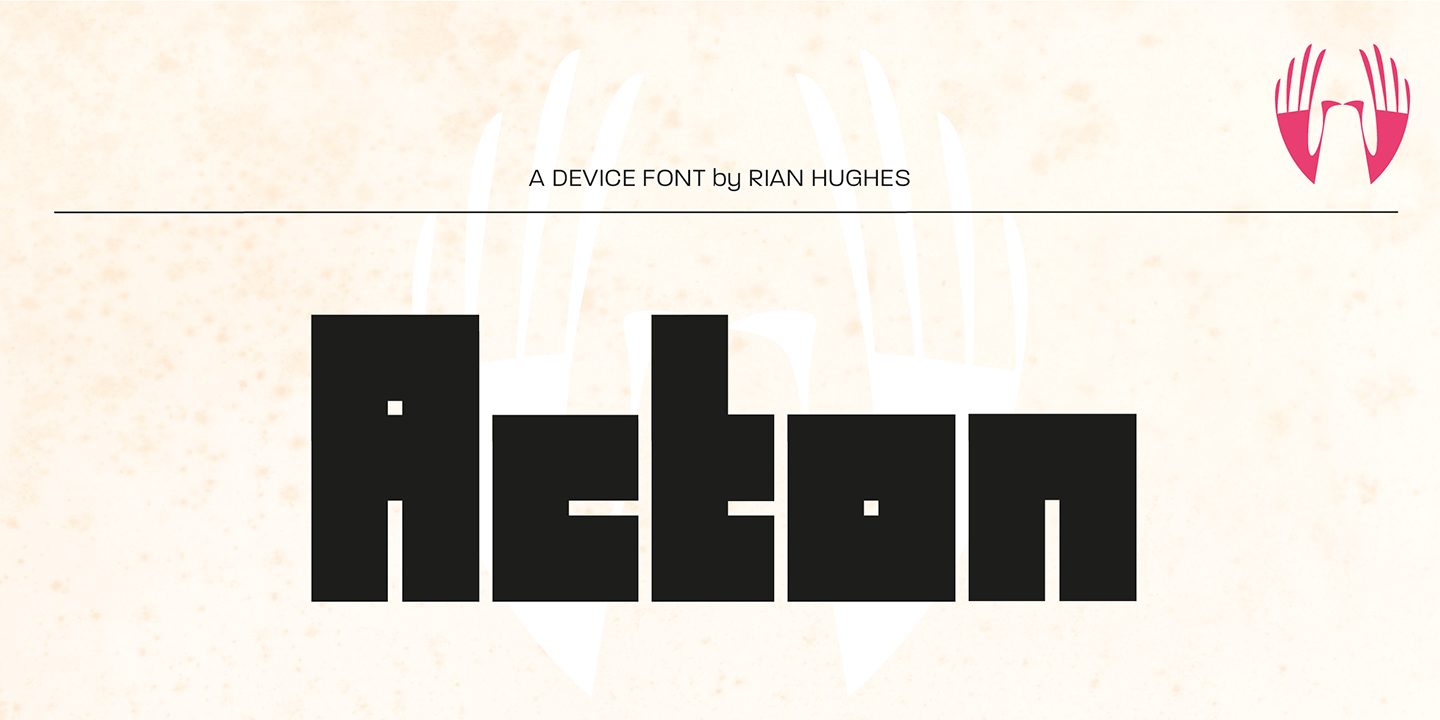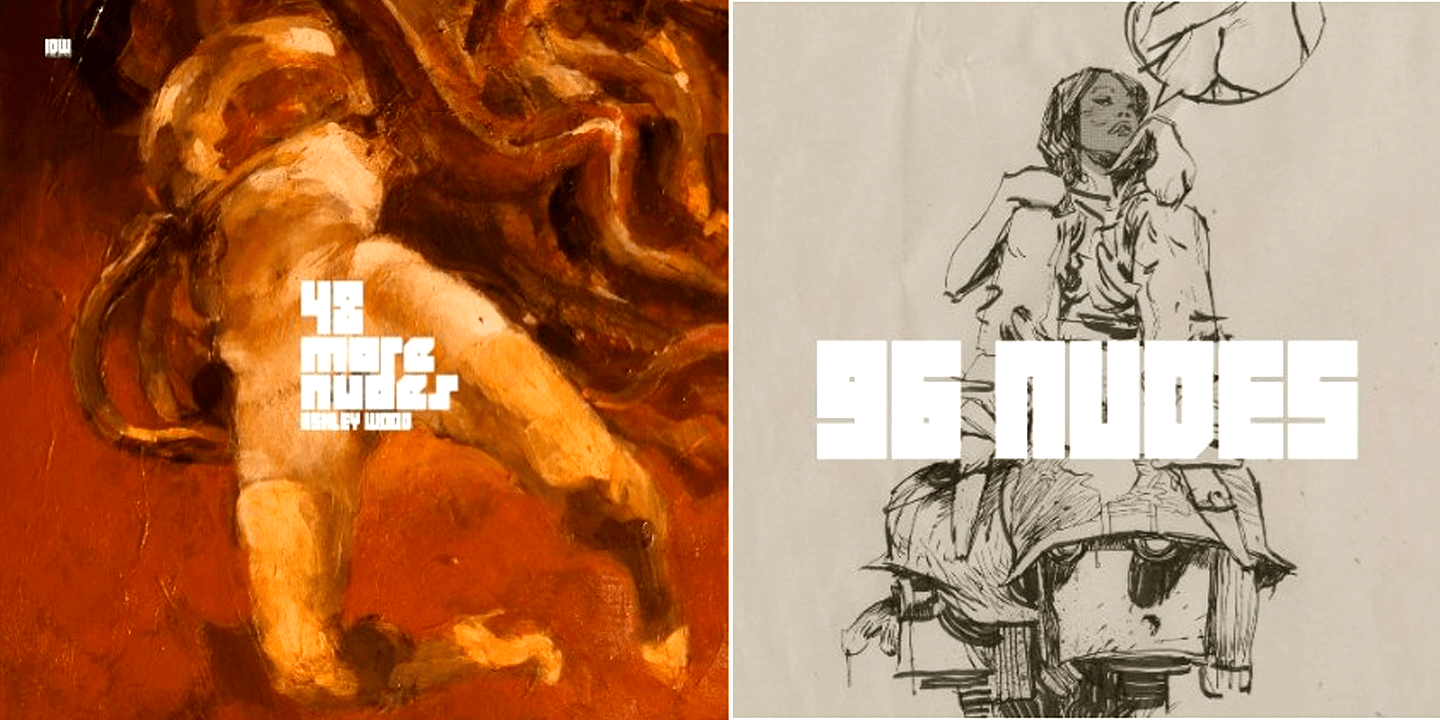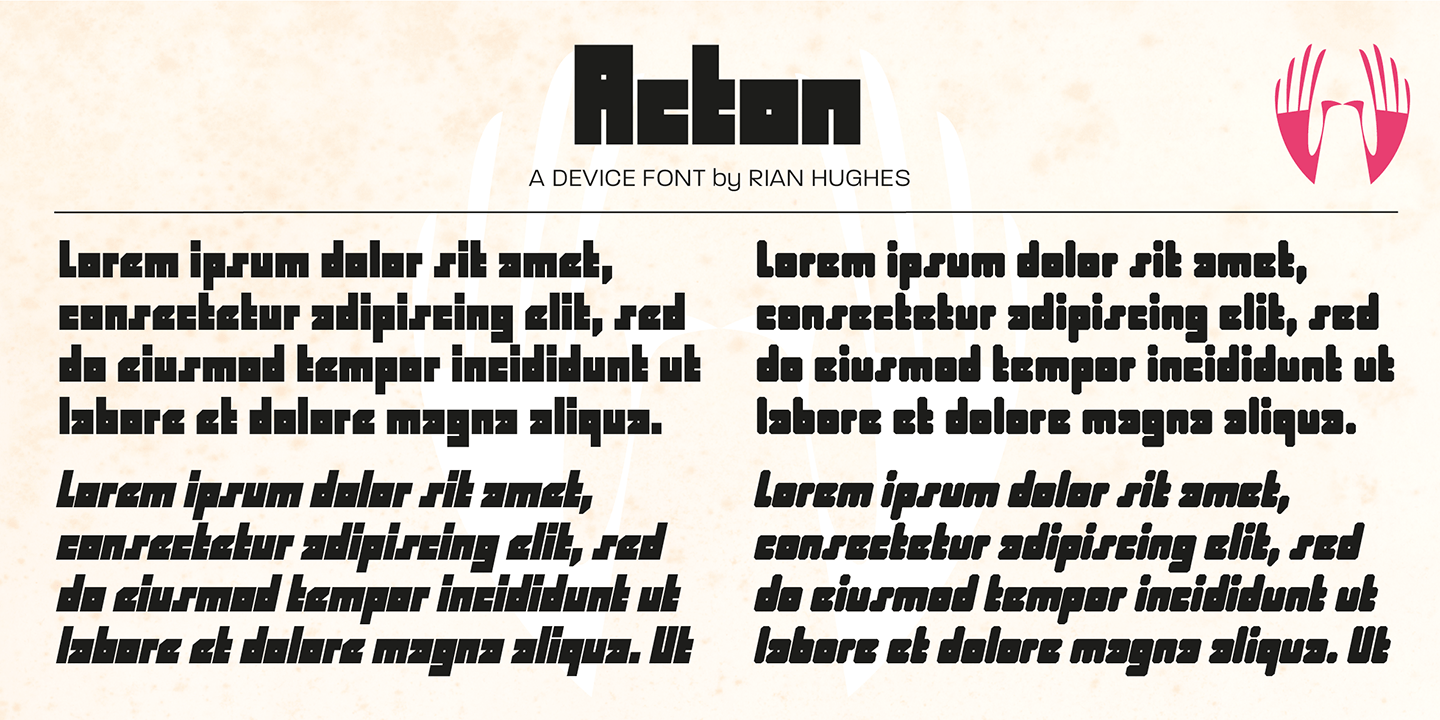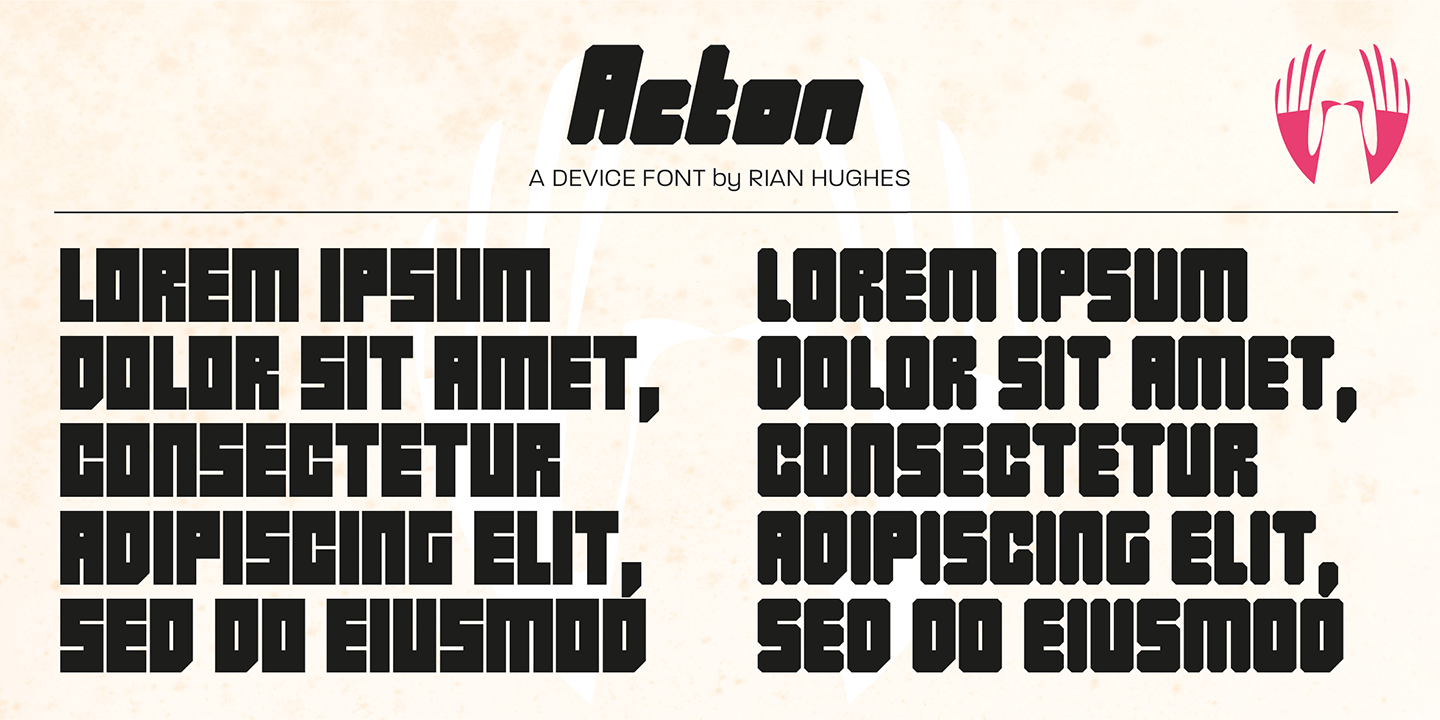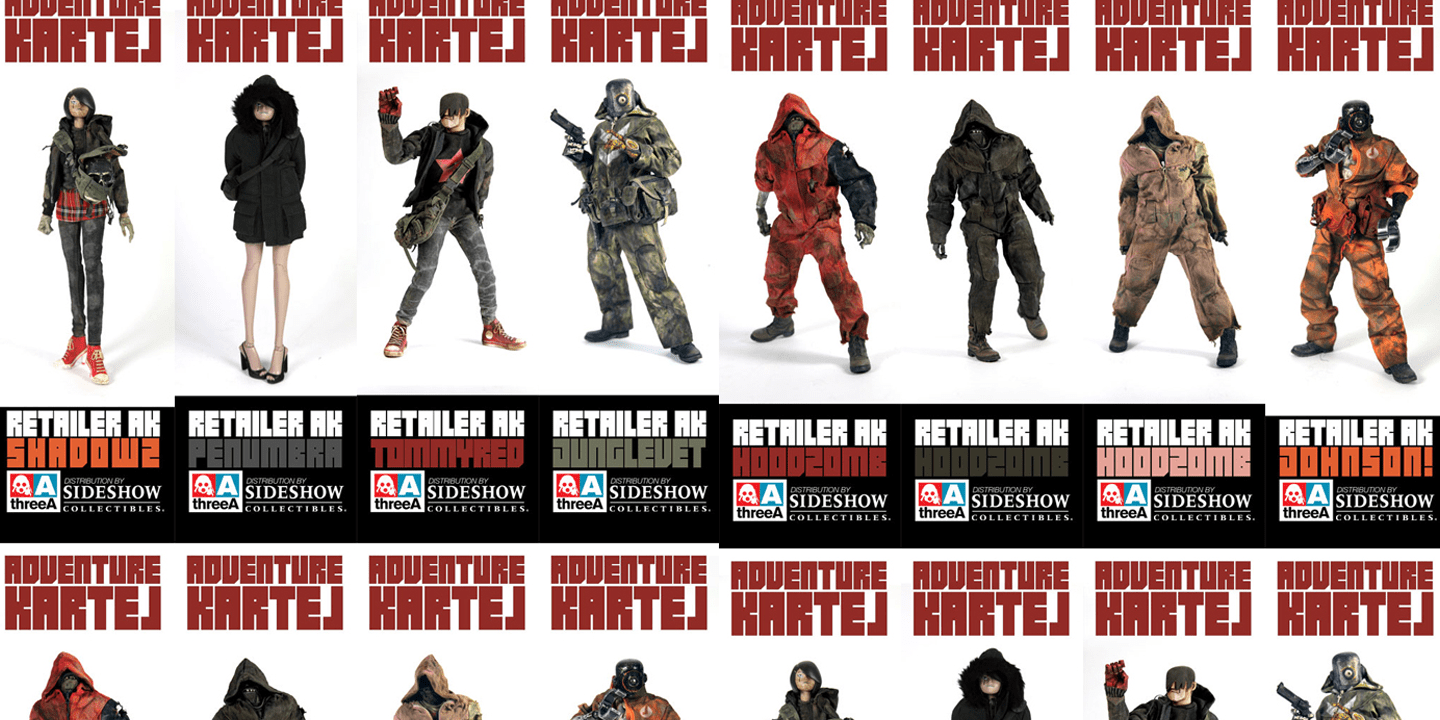
Acton
Acton is a deceptively simple, grid-based design. Though derived from a 2 by 3 arrangement of blocks, it uses white spaces to allow for more complex shapes – for example as the R – where the underlying 3 by 5 arrangement is apparent. It also departs from this strict grid-based logic for characters such as the the T, L, f and r, whose cross-bars are shorter than they would otherwise be in order to promote optical evenness. No elegant solution could be found for the V, which in geometric fonts can appear very similar to the U, lacking as it does the cross-bar that can differentiate a square A from the capital form of the n. However, the resultant diagonal retroactively proved useful on the lower-case e and a, characters that otherwise would have more uninteresting design solutions.